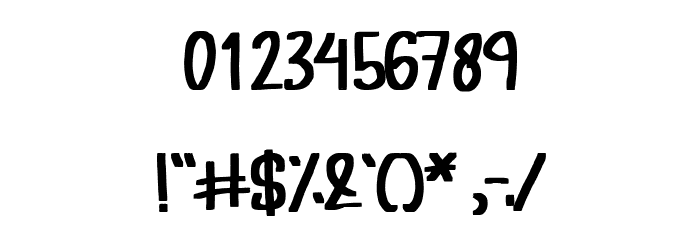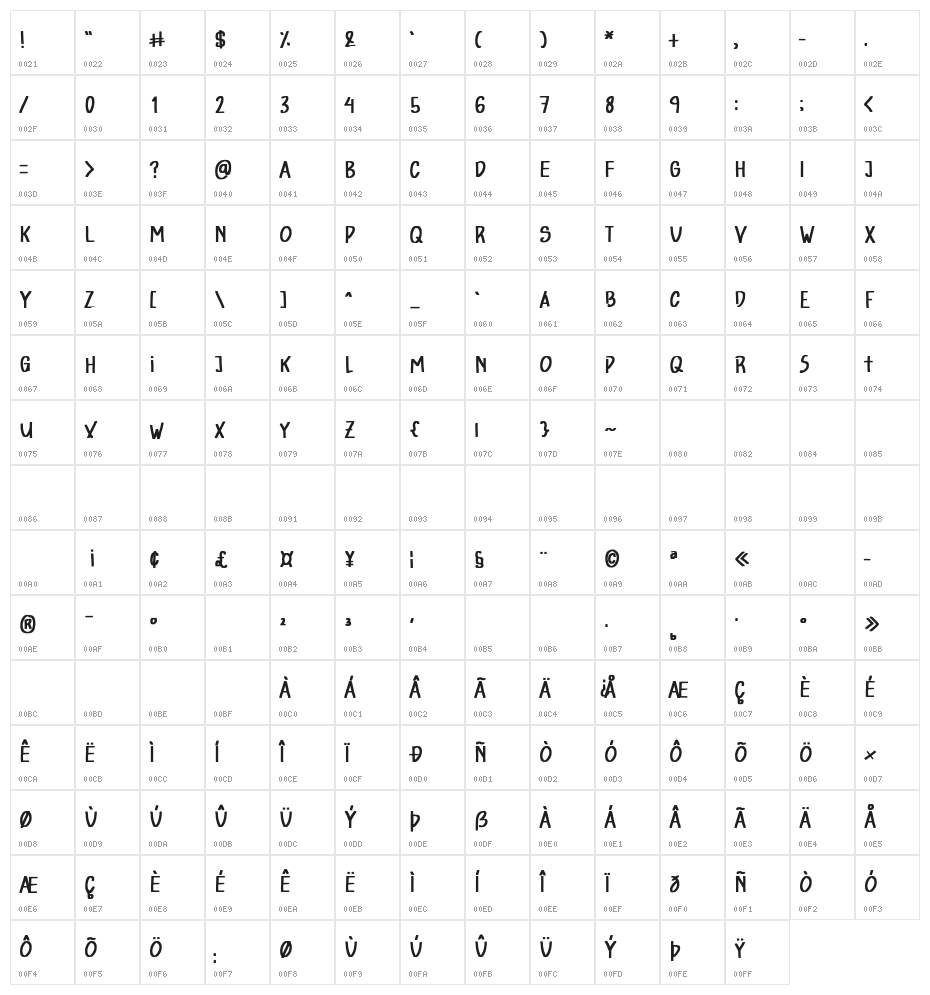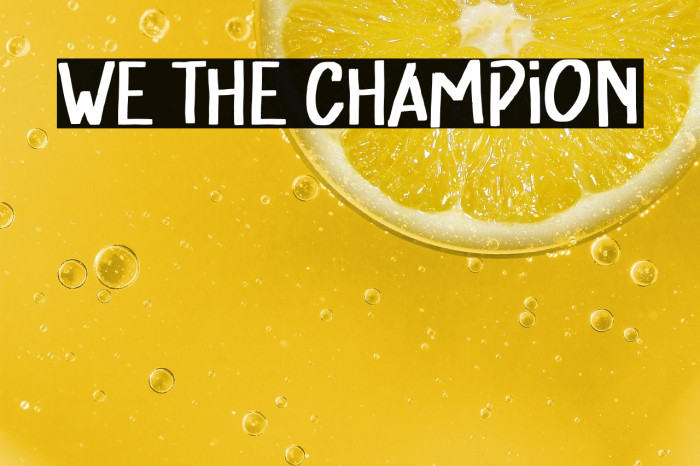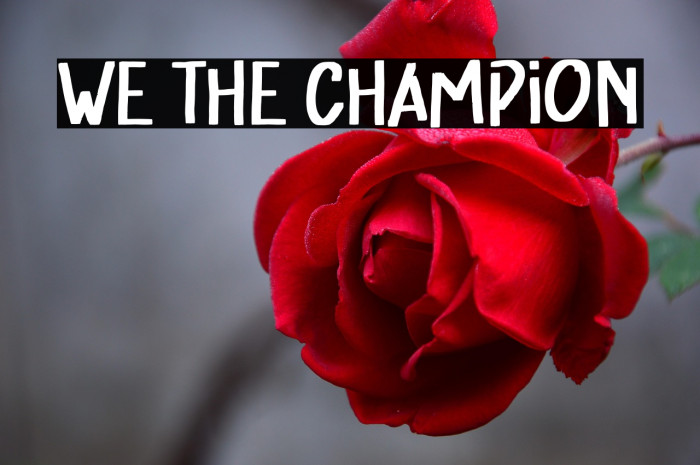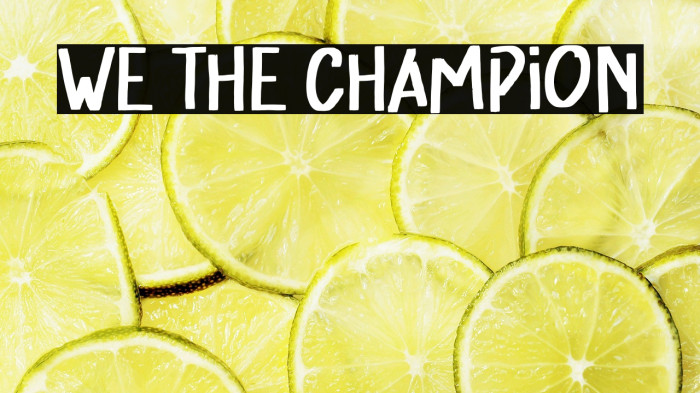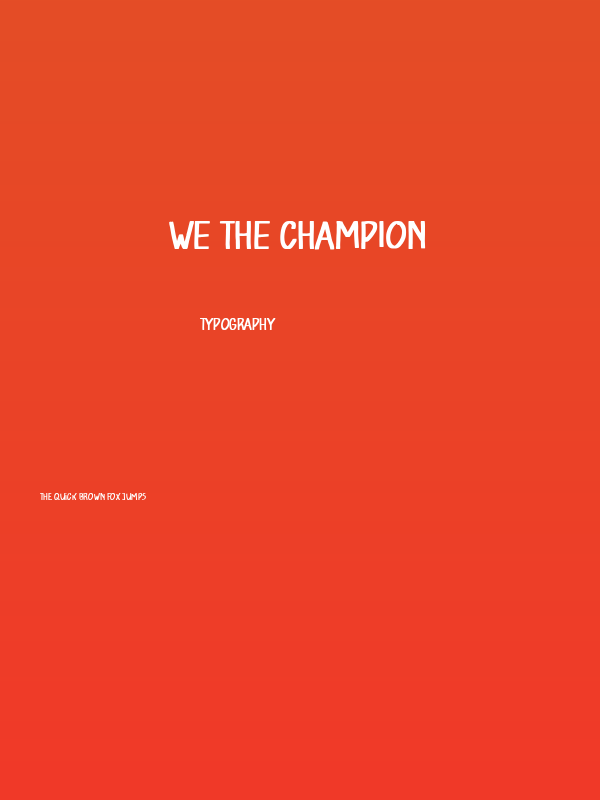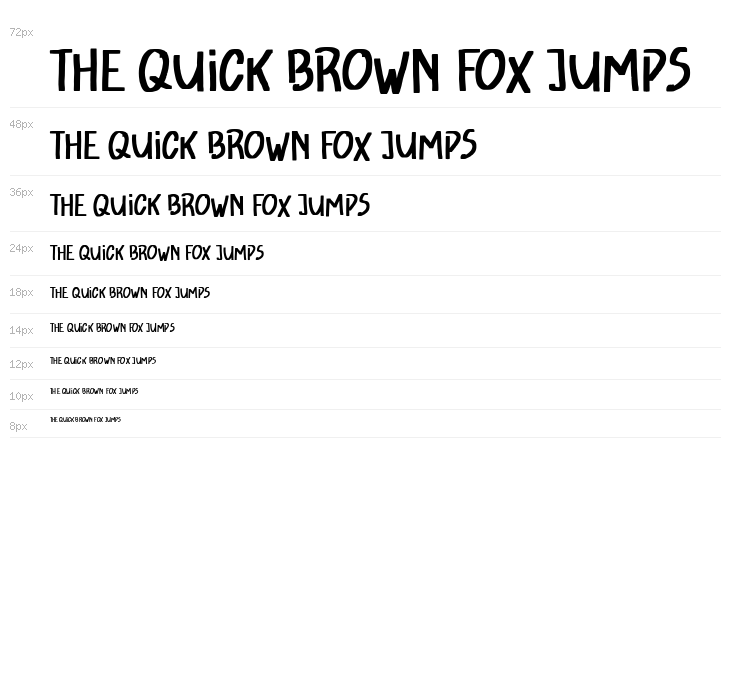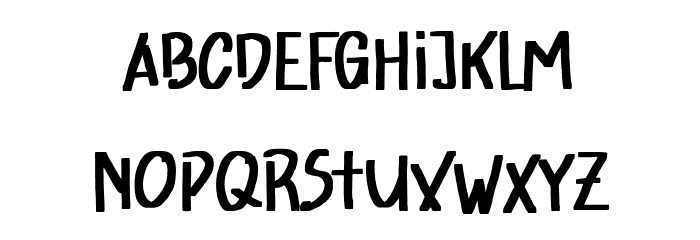
We The Champion Font
We The Champion Description
This font features a bold and playful style with a handwritten appearance. The characters are slightly irregular, giving it a casual and friendly feel. The uppercase and lowercase letters maintain a consistent weight, while the numbers and special characters are designed to match the overall aesthetic. The strokes are thick and rounded, adding to the approachable look. This font is versatile and can be used in various creative projects where a personal touch is desired.